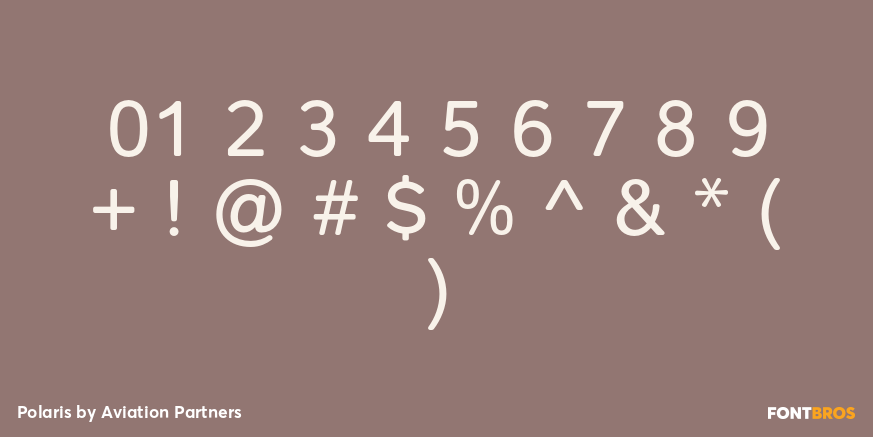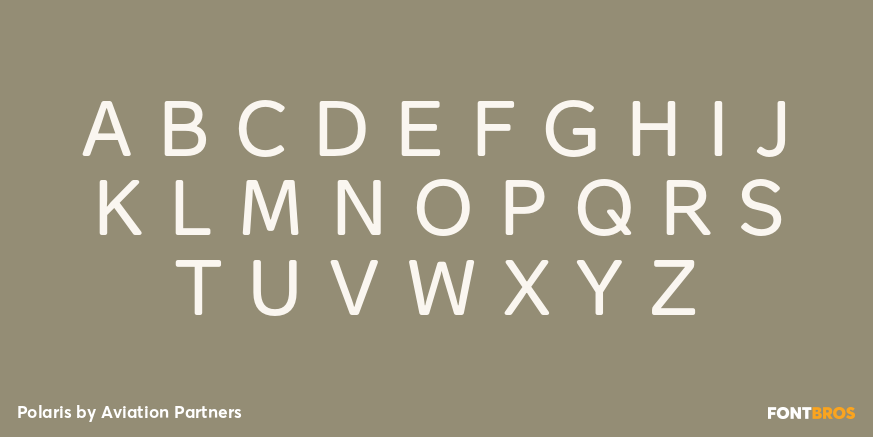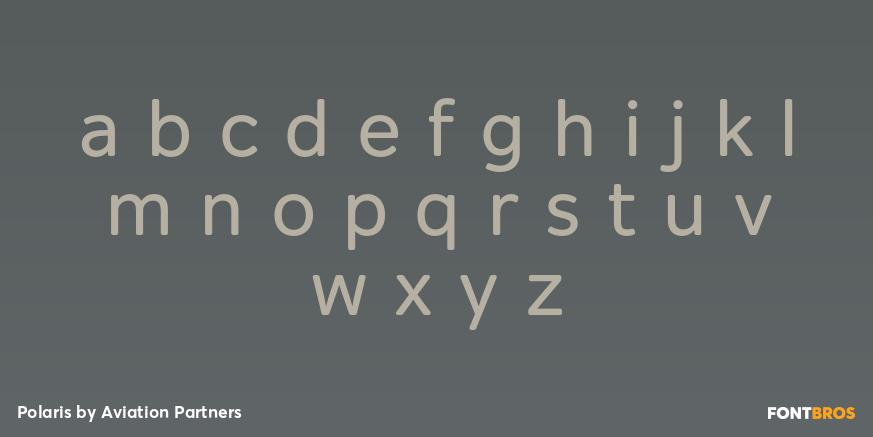
Polaris
Polaris is a rounded sans-serif family with four styles designed for easy reading.
Perfect for print - brochures, posters, newsletters and stationery. For signage, Polaris comes with a variety of compatible arrows. Polaris is also great on-screen: use it on your website as an alternative to the over-used standards.
Polaris works in the background, creating an atmosphere of harmony and modernity while your words deliver the message and your graphics and images achieve the prominence they deserve.